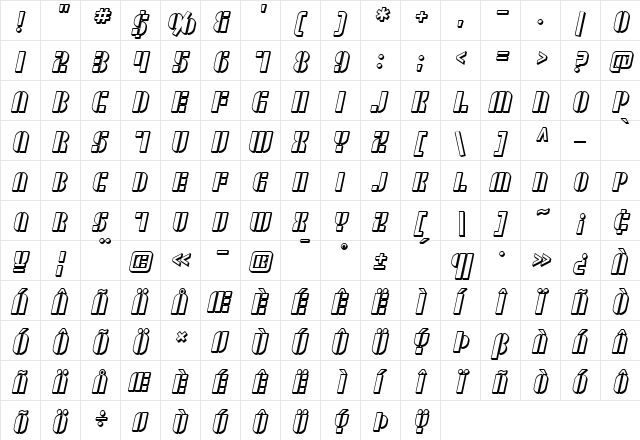
SF RetroSplice SC Shaded Regular
Design Context for SF RetroSplice SC Shaded Typeface
SF RetroSplice SC Shaded wears its vintage influences proudly, with letterforms that recall mid-century signage, classic packaging, and nostalgia-driven design.
Ideal for diner signage, record shop branding, 70s/80s-themed projects, and heritage product labels.
Font Pairing: Combine SF RetroSplice SC Shaded with a simple slab or neutral sans — period-accurate companions reinforce the vintage feel without competing for attention.
Pro Tip: Lean into SF RetroSplice SC Shaded's period character by pairing it with aged paper textures, muted colour palettes, and vintage illustration styles.